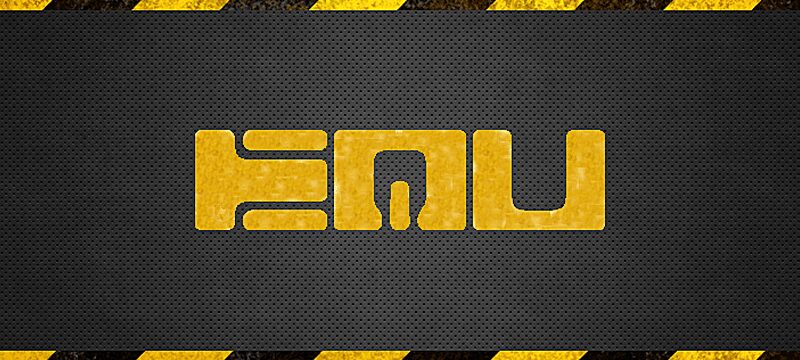
Sin Nombre by Carlos Matteoli is a free Unicode display font with a futuristic, low-slung silhouette, broad rounded strokes, and an emphatically horizontal flow across closely packed display lettering. Narrow interior slots puncture the otherwise dense character shapes.
Digital title cards are the strongest setting for this design, since its stretched proportions and machine-like curves can become part of an interface or science-fiction graphic rather than ordinary text across a wide frame. It also suits electronic music artwork, game branding, and experimental posters, where repeated arches and pill-shaped openings can echo screens, panels, or technical diagrams throughout the surrounding artwork.